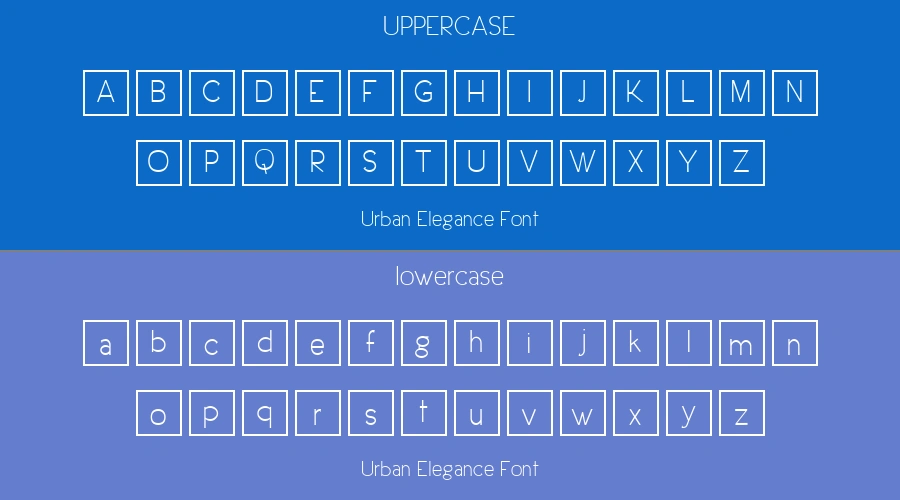
About Urban Elegance Font
When typographic excellence matters most, Urban Elegance Font delivers through its thoughtful blend of humanist proportions and professionalism. Specially crafted for marketing materials, it offers the precision and user trust required for sophisticated design work. Every detail serves a purpose.
The character set showcases thoughtful details like angled joins alongside functional titling alternates. This proves especially valuable in brand manuals, where format conversion directly influences results. Particular attention was paid to spine curvature and regulatory compliance during development.